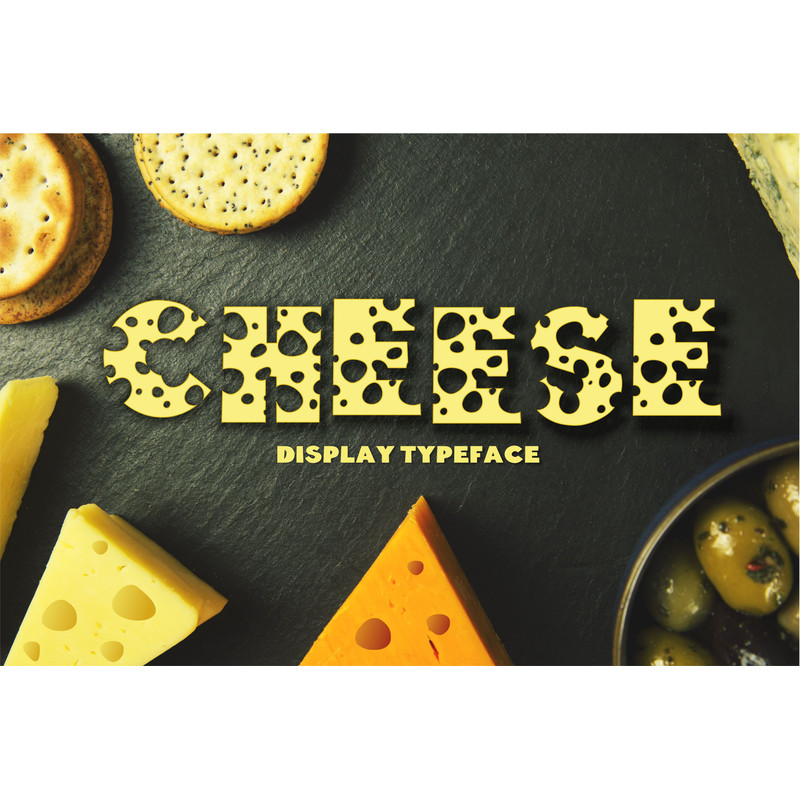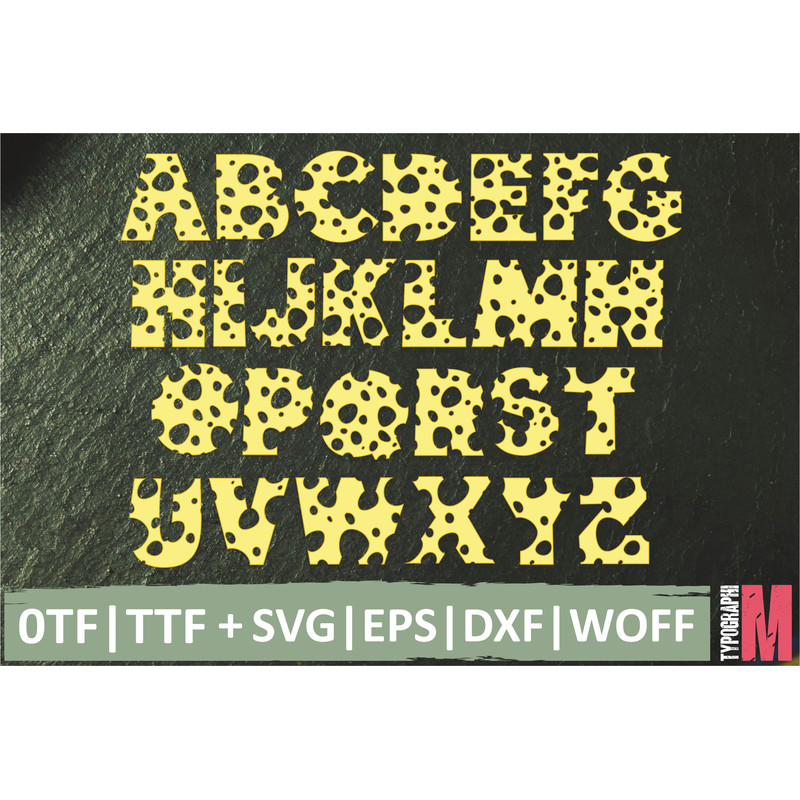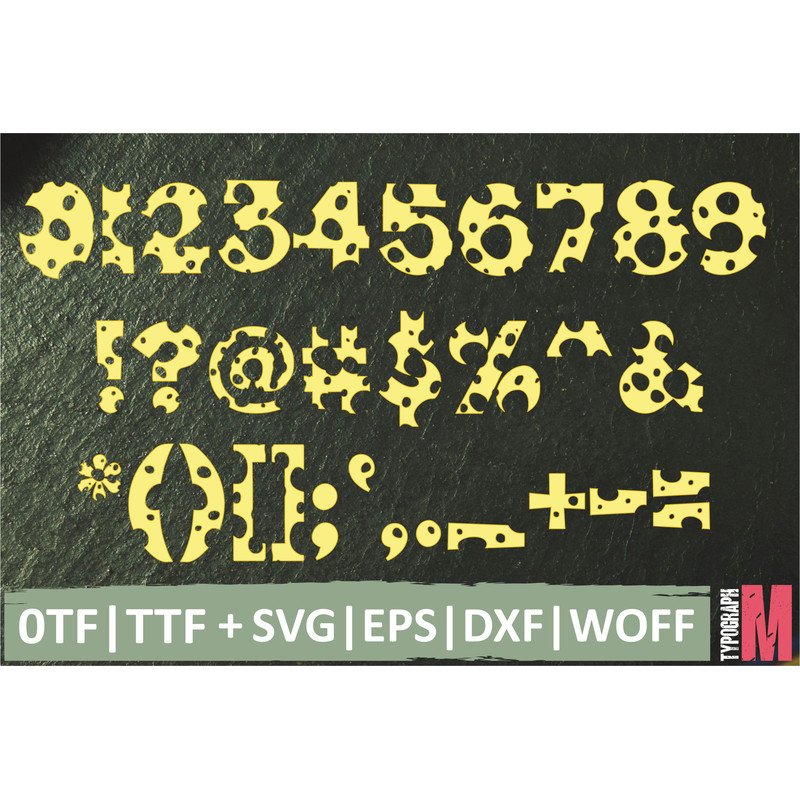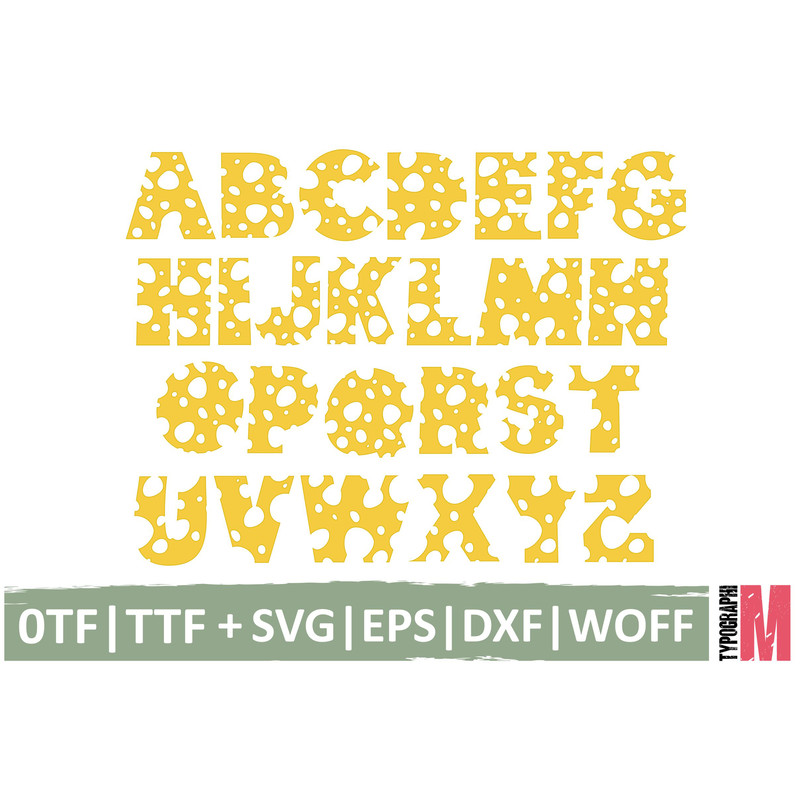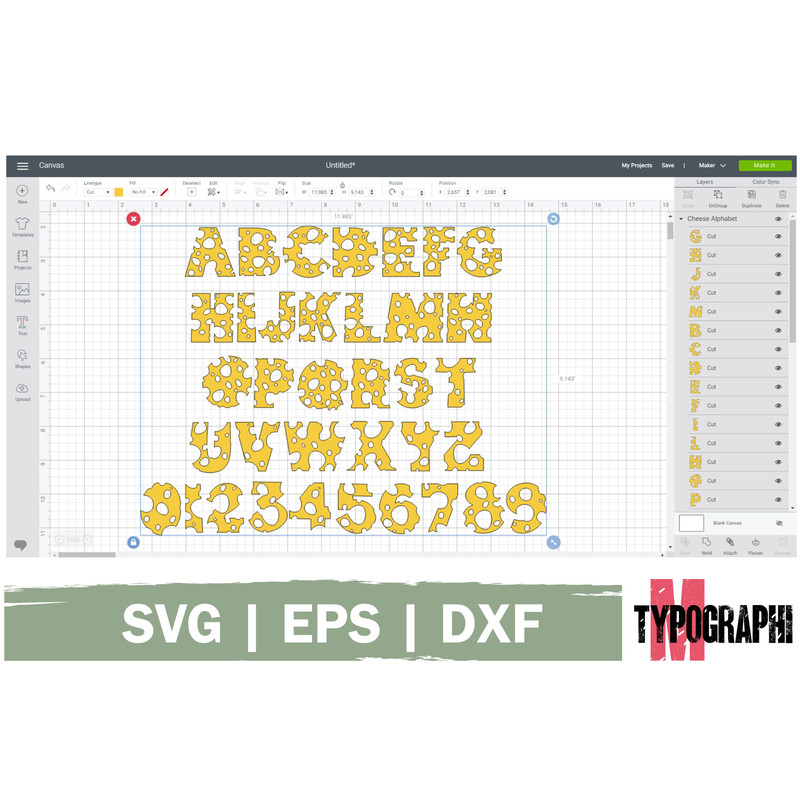
Cheese font | food font, cheese alphabet, cheese letters, food in the form of letters and numbers
Cheese embodies fun, quirkiness and authenticity. It is the perfect choice for food related project!